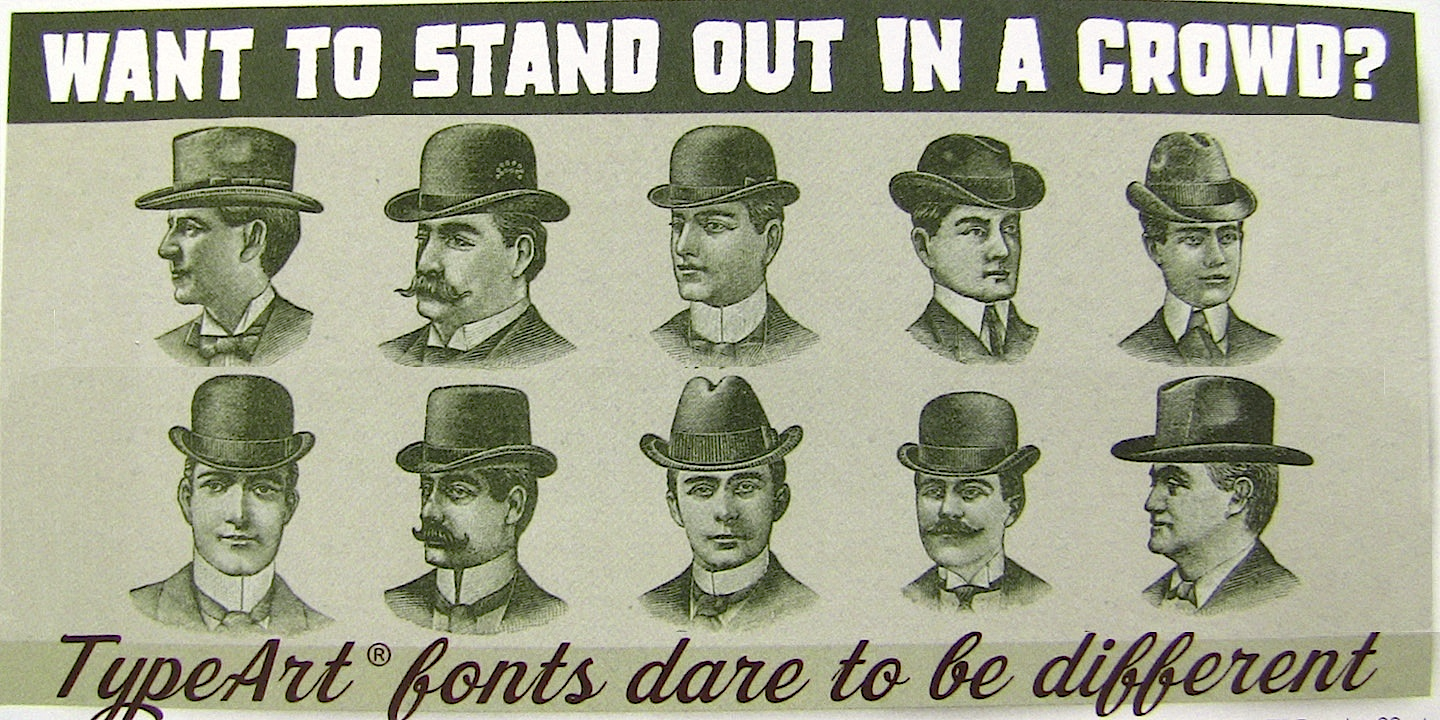
Dream Lover Font is perfect for romantic wedding invitations, love letter designs, valentine's day cards, romantic novels, intimate branding projects, beauty salon signage, romantic restaurant menus, and dreamy social media graphics.
What makes Dream Lover Font exciting is its enchanting romantic character that captures the essence of love and intimacy through flowing, heartfelt letterforms. The delicate curves and dreamy proportions create an atmosphere of romance that speaks directly to the heart and evokes feelings of passion and tenderness.
Dream Lover Font family includes regular, bold, italic, script, and decorative versions, plus romantic ornaments, heart symbols, and flourishing swashes that enhance the passionate typography experience with intimate elegance.
Fall in love with Dream Lover Font Free Download, the ultimate choice for projects celebrating romance and intimate connections. This captivating typeface embodies the poetry of love through letterforms that seem to whisper sweet sentiments and romantic declarations. The beautifully crafted characters feature gentle curves and passionate details that transform ordinary text into love letters that touch the soul. Wedding planners and romantic brand designers consistently choose this font for projects requiring authentic emotional connection and heartfelt expression that resonates with couples and lovers. Its comprehensive romantic elements provide endless possibilities for creating memorable experiences that celebrate love in all its beautiful forms. Experience the perfect expression of romantic typography that transforms your communications into declarations of love, making every word feel like a tender embrace that captures the magic of romance and creates lasting emotional connections with your audience.